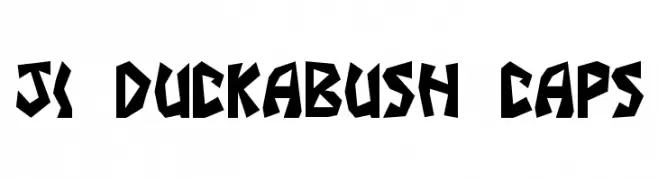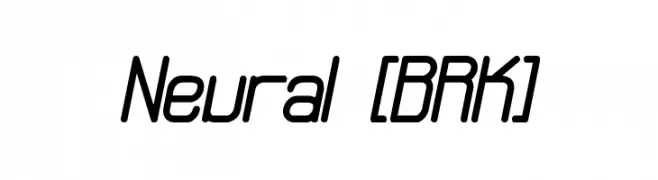
A bold, angular font with a graffiti-inspired style and high contrast.
A quirky, hand-drawn font with irregular, jagged edges and playful character design.
A futuristic, geometric font with rounded edges and consistent line thickness.
A casual, handwritten font with free-flowing strokes and uneven spacing.
A bold, geometric font with a modern, industrial style.
A playful, hand-drawn font with dynamic, tilted characters and varying stroke thickness.